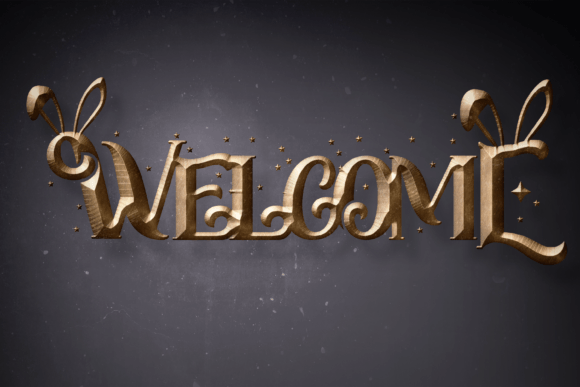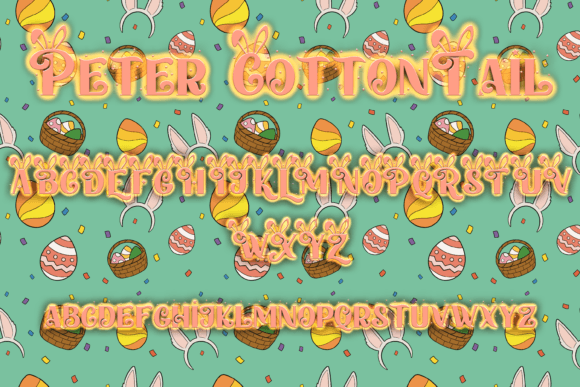
Introduction to Peter Cottontail Font
As a designer, you’ve probably had that moment when you’re brainstorming ideas for a creative project and suddenly, the perfect font pops into your mind. It’s like finding a hidden treasure that instantly elevates your design and sets it apart from the rest. For me, that moment came when I stumbled upon the Peter Cottontail Font – a delightful display font that captures the whimsy and magic of Easter.
The Peter Cottontail Font is more than just a fun design resource; it’s a valuable addition to any designer’s toolkit. With its transparent background and high-quality design, this font is perfect for adding a touch of playfulness to your Easter-themed projects, from greeting cards to social media graphics. And the best part? It’s available for free download, making it an instant favorite among designers looking for a creative and versatile font.
Key Features of Peter Cottontail Font
- Unique, whimsical design ideal for creative projects and children’s media
Honest Review: Peter Cottontail Font
One of the things that works well with this font is its playful and whimsical feel. ✨ The cursive script is perfect for adding a touch of personality to creative projects, such as children’s books, greeting cards, or even restaurant menus. The font is also highly customizable, allowing you to adjust the size, color, and style to fit your needs.
Another advantage of the Peter Cottontail Font is its transparent background, which makes it easy to overlay on top of images or other design elements. This feature is particularly useful for designers who need to create intricate and layered designs.
- Playful and whimsical feel
- Highly customizable
- May not be suitable for formal or professional projects
- Some characters may be difficult to read in certain font sizes
Overall, I’m impressed with the Peter Cottontail Font, and I think it’s a great addition to any designer’s library. While it may have some limitations, its playful feel and high level of customization make it a valuable resource for creative projects. ⚠️ Just be sure to use it wisely and in the right context.
The Peter Cottontail Font is ideal for creative projects that require a playful, whimsical touch. Use it for children’s book covers, party invitations, or even social media graphics. With its unique design and transparent background, you can create stunning visuals that stand out from the crowd.